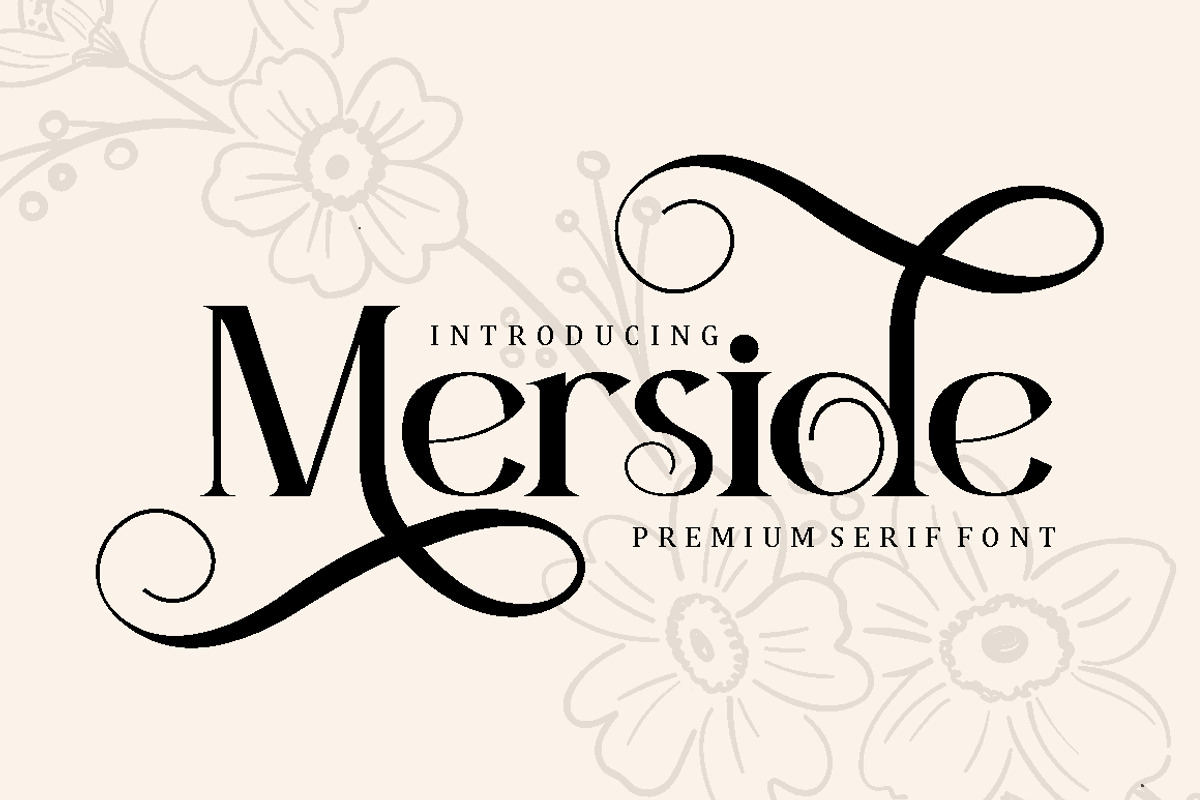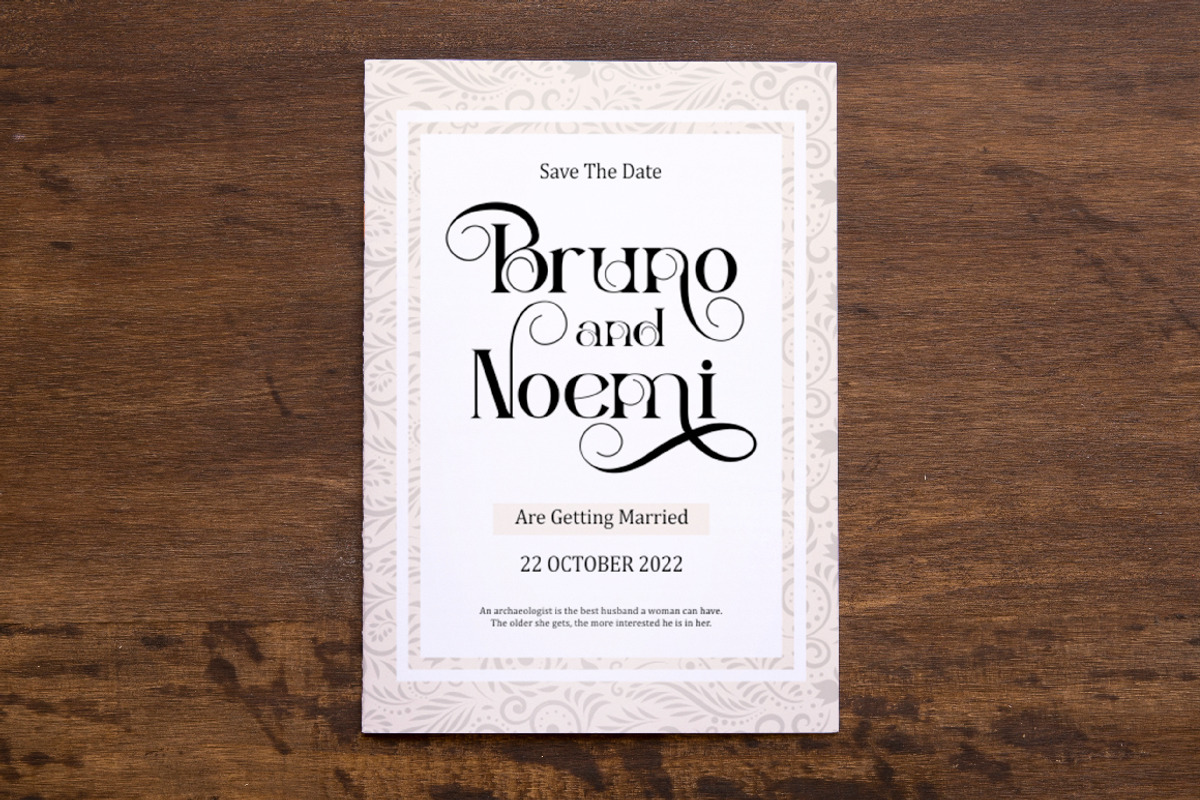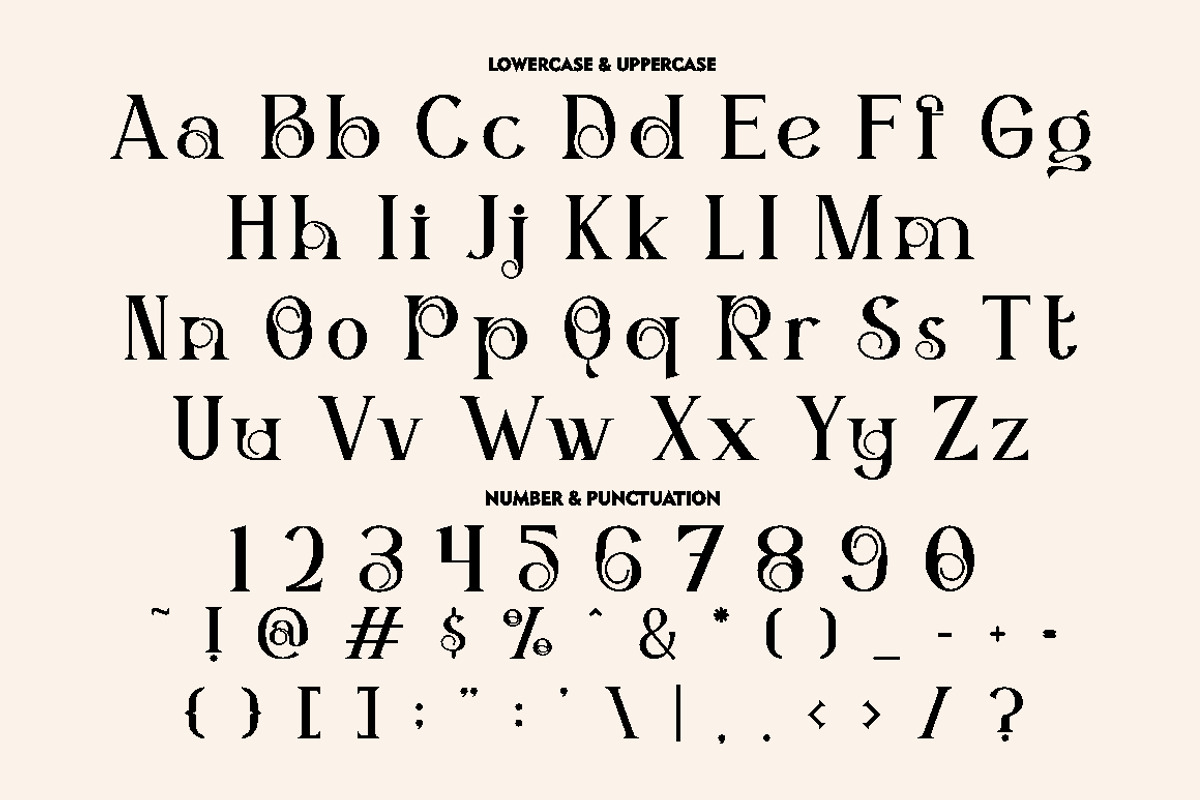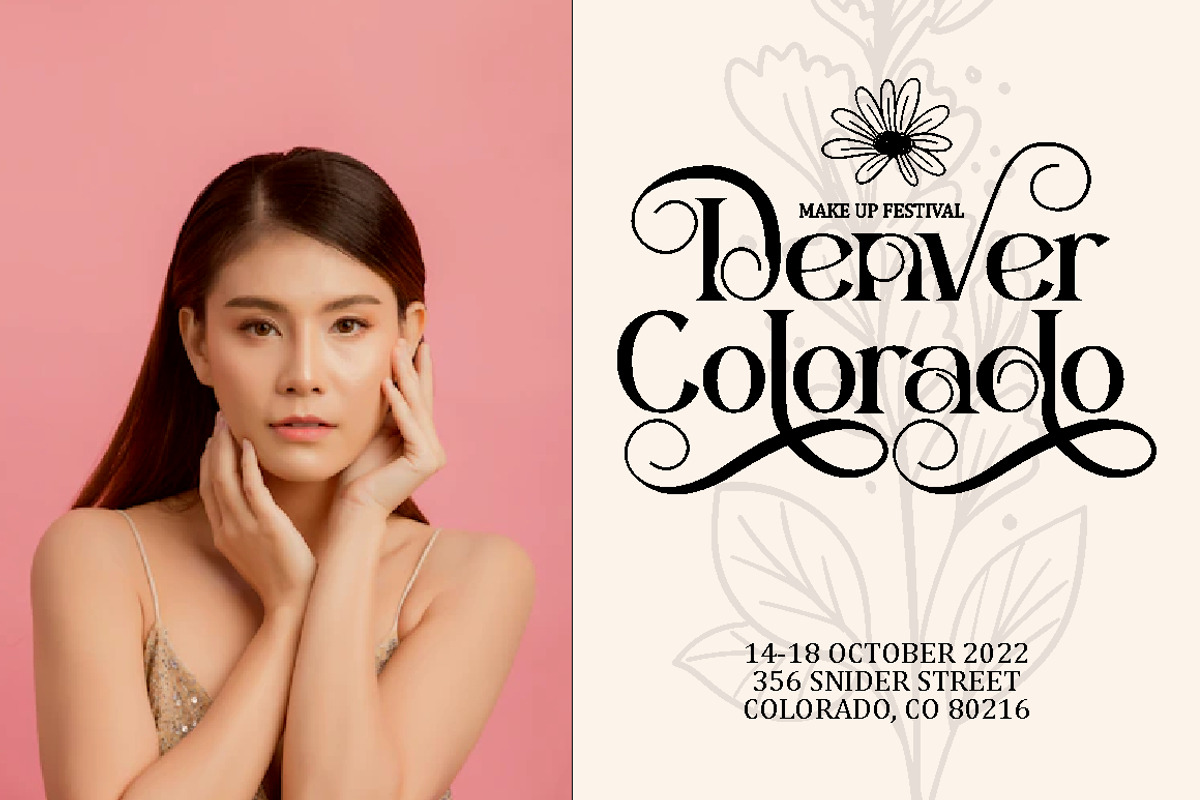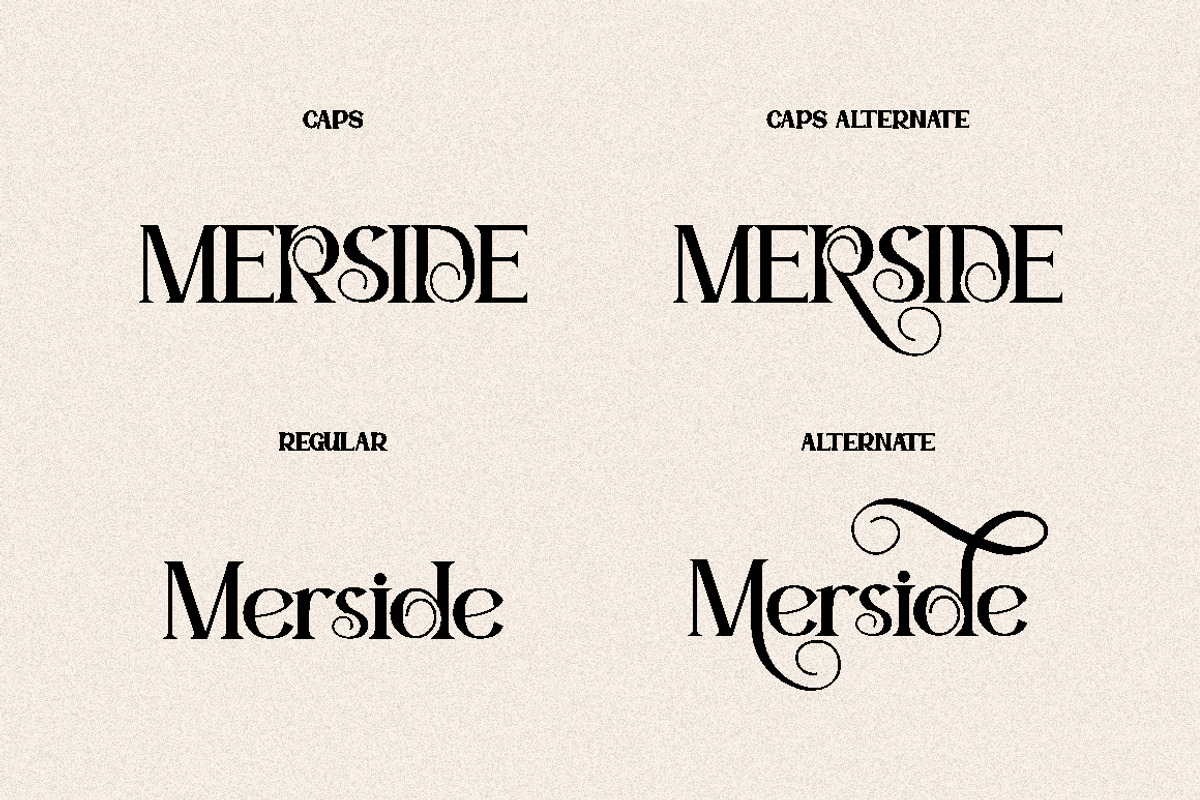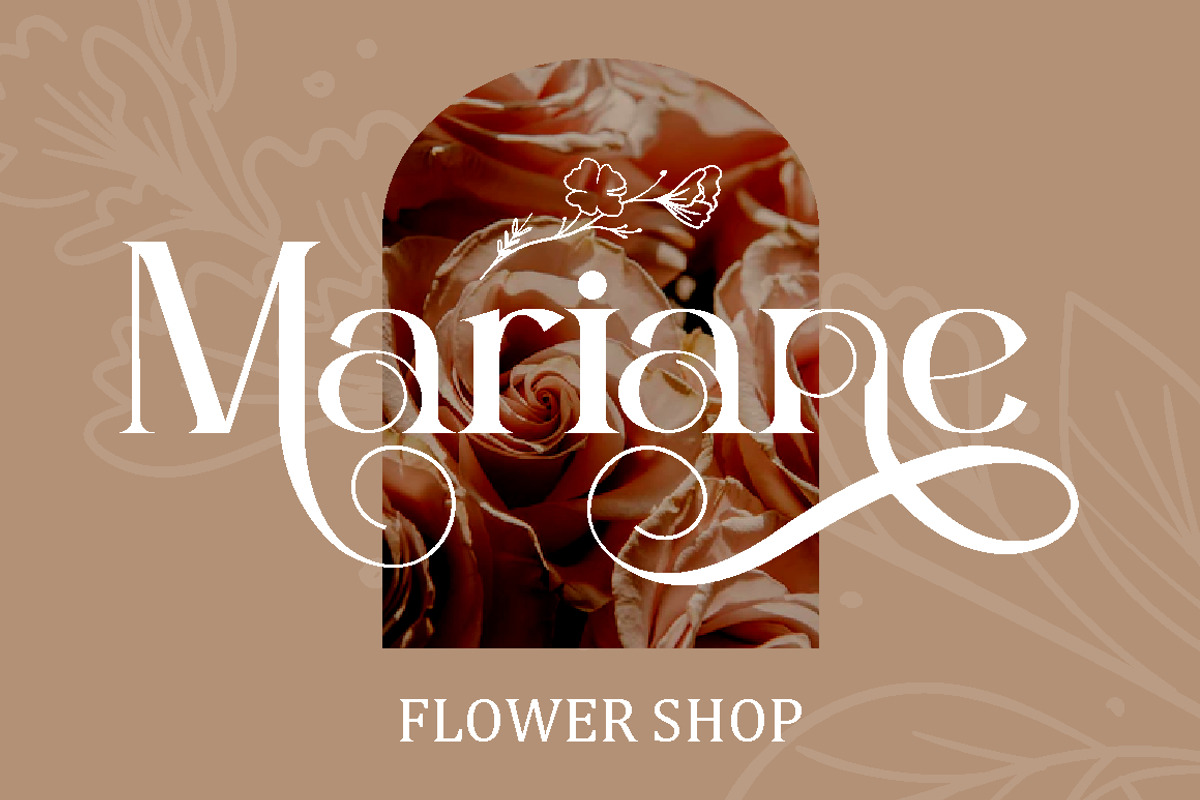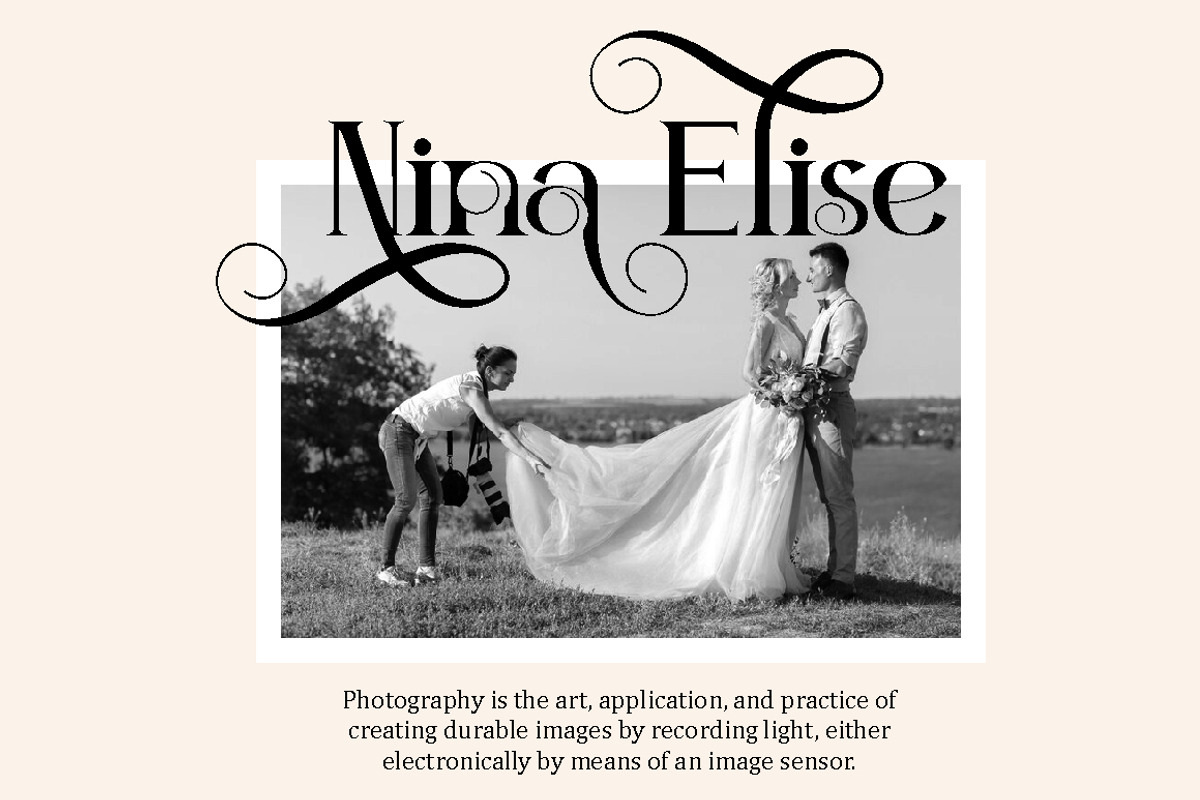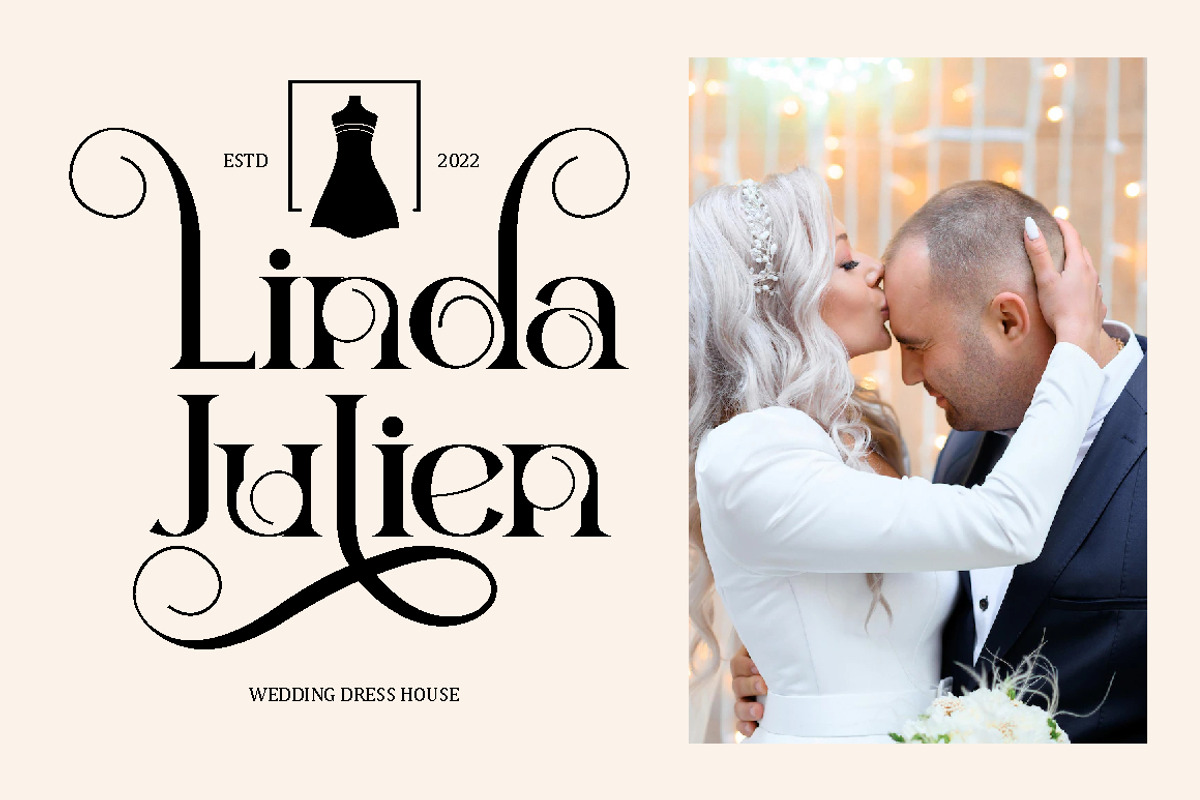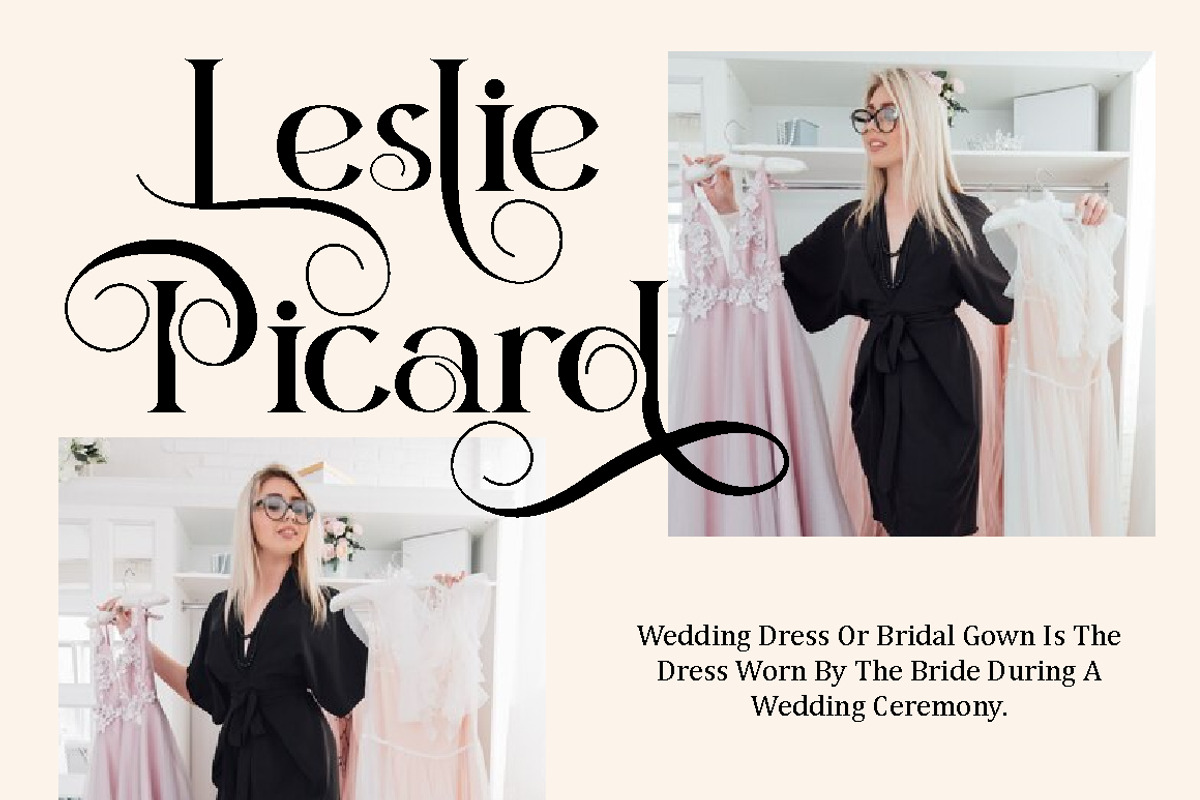
Merside - Premium Serif Font
Merside - Premium Serif Font is a stunning typeface that exudes sophistication and elegance. The font's clean and crisp lines make it a versatile choice for various design projects, from high-end branding to classic book covers and posters. The font was crafted with the utmost care and attention to detail, resulting in a timeless typeface that will elevate any design.
Merside - Premium Serif Font is the perfect choice for designers who want to convey a sense of luxury and exclusivity in their work. The font's classic serif style adds a touch of refinement, while the clean lines give it a modern twist. Whether you are designing a logo for a luxury brand, creating marketing materials for a high-end fashion label, or designing a product packaging, Merside will add a touch of elegance and sophistication to your project.
One of the standout features of Merside - Premium Serif Font is its OpenType features, which include alternates and ligatures. These features give designers more creative freedom, allowing them to customize the font and create unique and eye-catching designs. The font also includes uppercase and lowercase letters, as well as number, punctuation, and symbol glyphs. Additionally, Merside supports multiple languages, making it an excellent choice for global brands.
If you are looking for a premium serif font that will make your design stand out, Merside - Premium Serif Font is an excellent choice. With its elegant and refined style, it is perfect for creating luxury branding, elegant design, and high-end fashion. This font will give your project a timeless and classic look that will never go out of style.
In summary, Merside - Premium Serif Font is a stunning and versatile font that is perfect for designers who want to create high-end and sophisticated designs. With its classic serif style, OpenType features, and multilanguage support, it is a font that will elevate any design project.